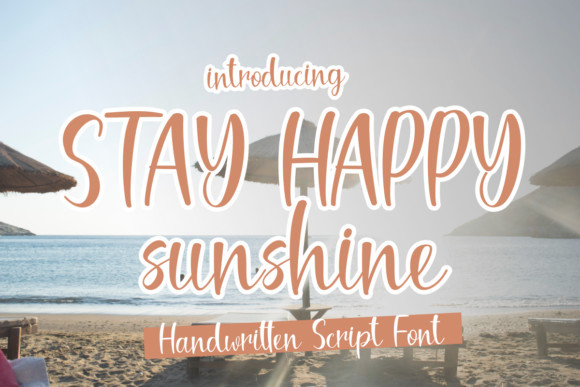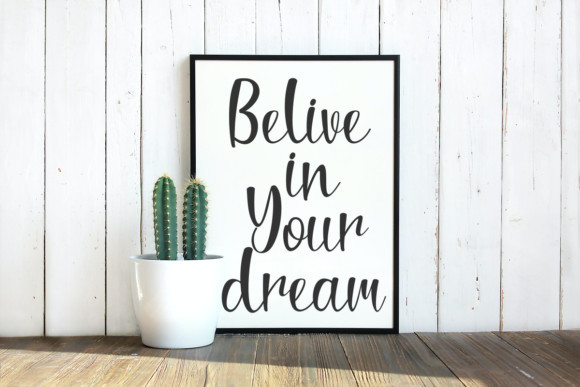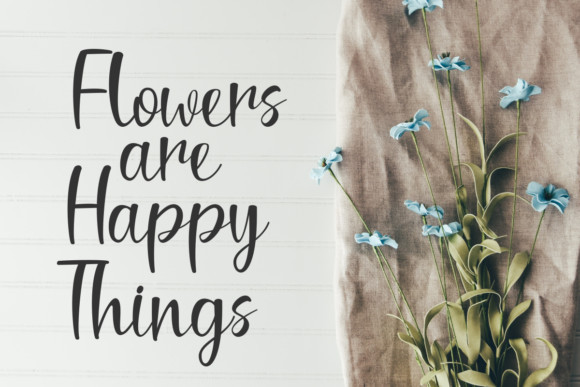
Stay Happy Sunshine Font
Stay Happy Sunshine is a joyful, delicate and fresh script font. It can be used for any creation that requires a light and dainty touch. Use this font for your designs and explore its endless possibilities.